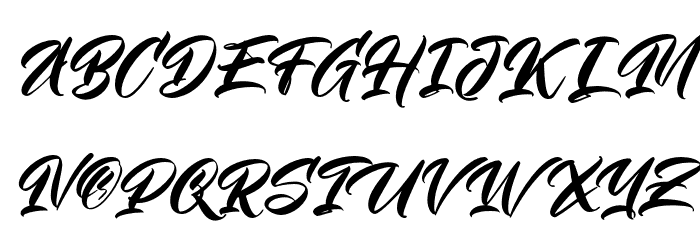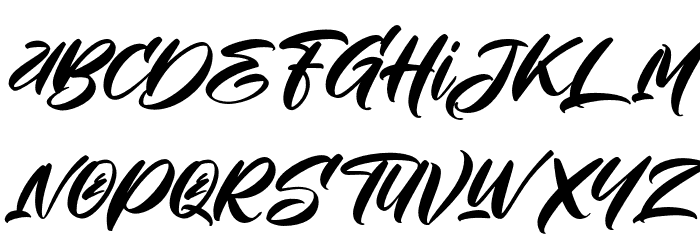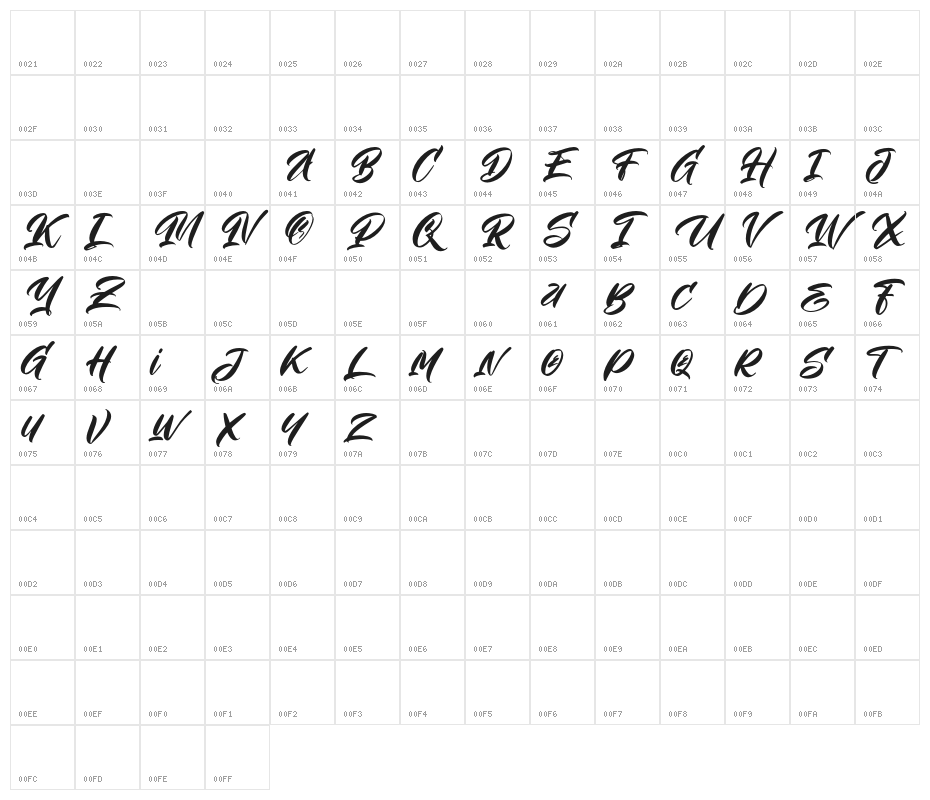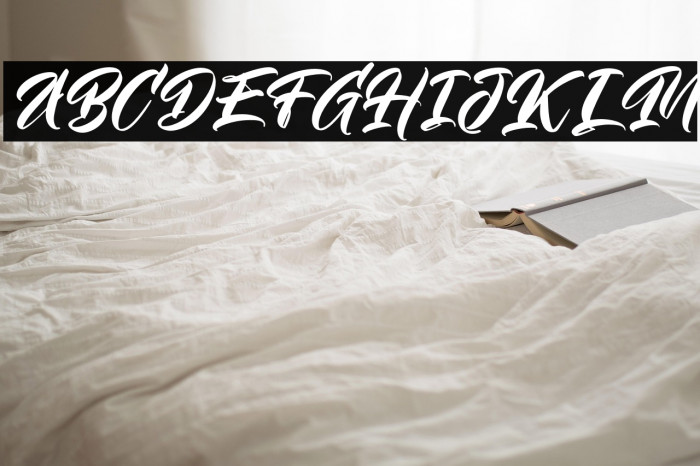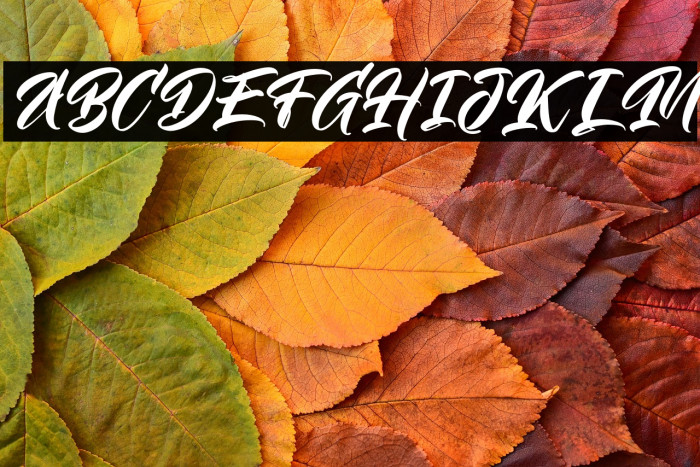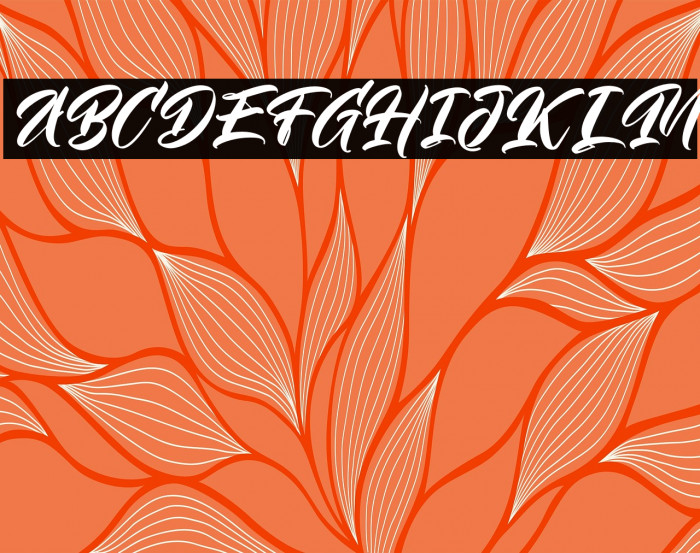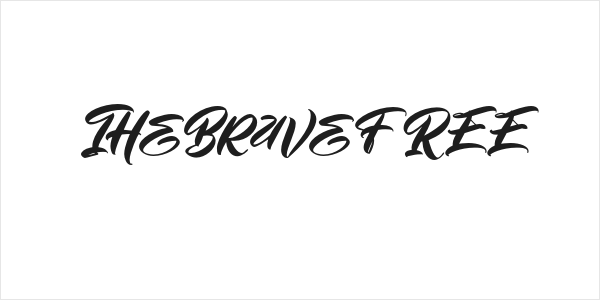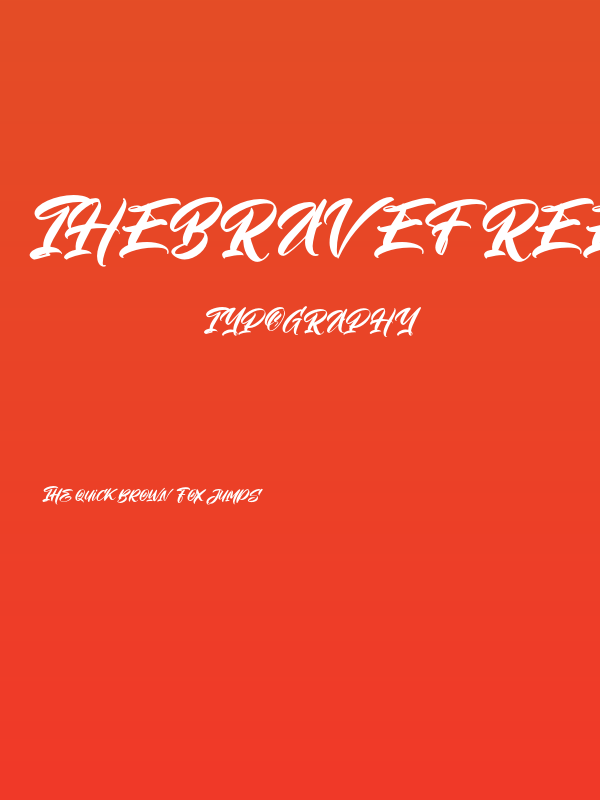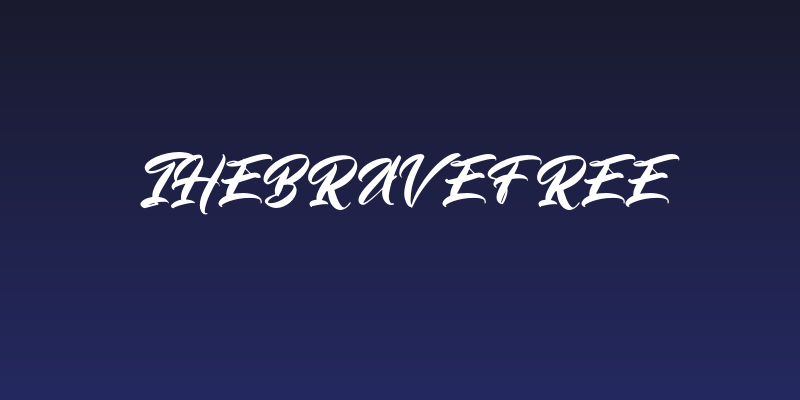
TheBraveFREE Font
This font features a bold and expressive script style, characterized by its fluid and dynamic strokes. The letters are interconnected with smooth, flowing lines that give a sense of movement and elegance. The uppercase letters are particularly striking, with dramatic flourishes and a sense of grandeur. The lowercase letters maintain the same fluidity, creating a cohesive and harmonious look. The overall design is both modern and classic, making it versatile for various design needs. The font's boldness ensures it stands out, while the script style adds a touch of sophistication.
A bold, expressive script font with fluid, interconnected strokes.
- Font: TheBraveFREE
- Proposed Projects: Ideal for branding, invitations, and logo design where a touch of elegance and boldness is desired.
- Category: Script
- Use Case: Logos, Invitations, Branding